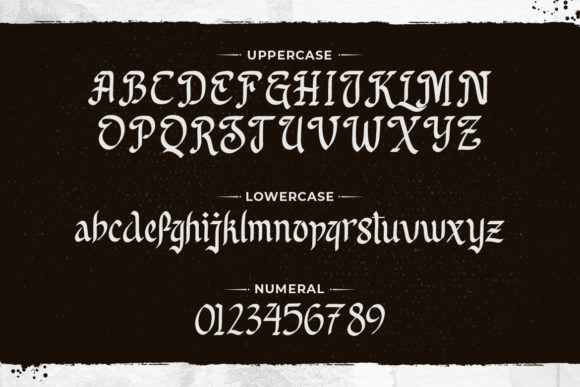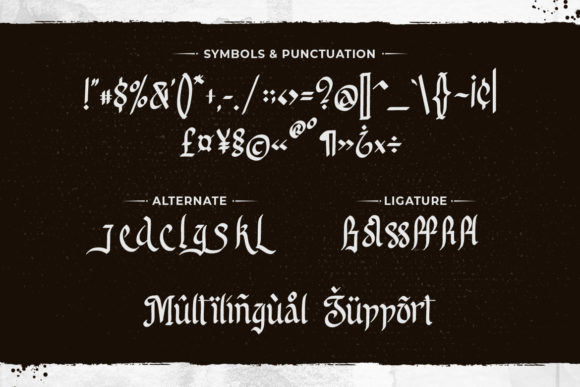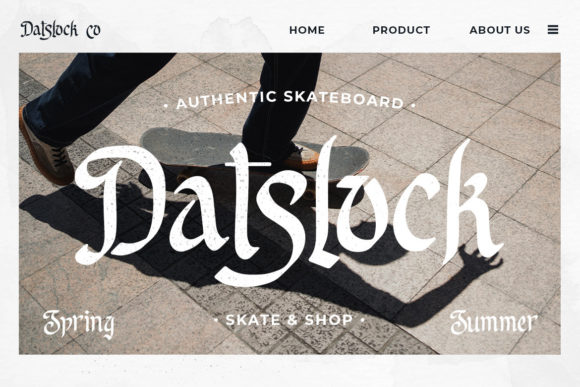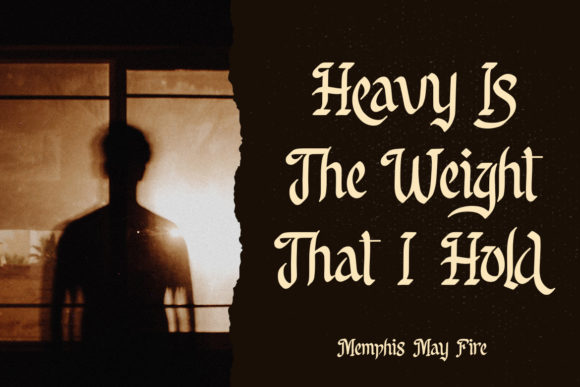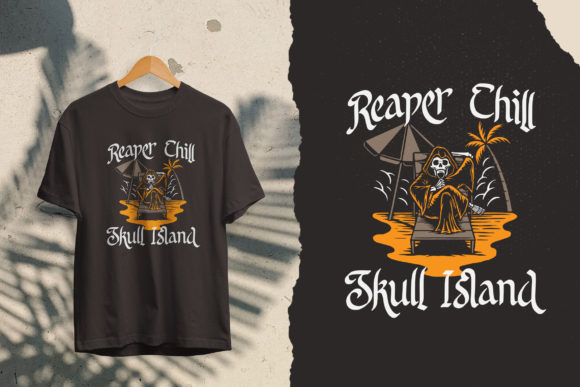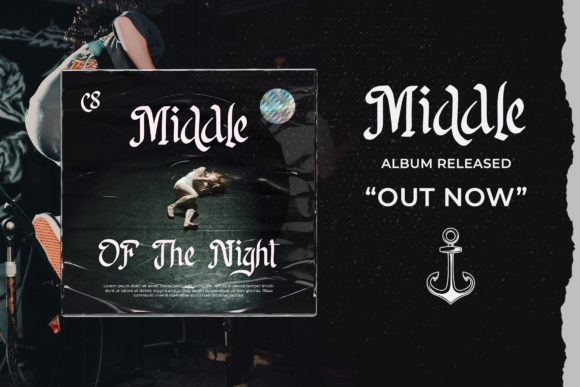
Introduction to Reclaim Glory Font
Have you ever found yourself stuck in a design rut, yearning for that perfect font to elevate your creative project? For designers, the search for the ideal typography can be a daunting task, but what if I told you that you’ve just stumbled upon it? The Reclaim Glory Font is a game-changer, and in this article, we’ll dive into what makes it a valuable addition to any design arsenal.
This striking blackletter font exudes an air of mystery and sophistication, making it a perfect fit for labels, branding, and logos that demand attention. Its gothic design and imposing presence are sure to leave a lasting impression on your audience.
Key Features of Reclaim Glory Font
- High-quality design resource for creative projects: The Reclaim Glory Font is a premium font that offers a unique and elegant look for your designs.
- Transparent background: This font features a transparent background, allowing you to easily layer it over images or other design elements.
- Unique characteristics: The Reclaim Glory Font features a bold and striking design, with intricate details and a mix of modern and vintage elements.
- Perfect for various creative projects: Use this font for logos, branding, advertising, and other design projects where a high-quality, unique font is required.
Honest Review: Reclaim Glory Font
I recently had the chance to experiment with the Reclaim Glory Font, and I must say it’s been a pleasant experience. This font is a great addition to any design resource, offering a high quality and elegant look that can elevate any creative project.
What works well: ✨ The font’s unique design and aesthetic make it perfect for projects that require a touch of sophistication and elegance. The Reclaim Glory Font is also highly versatile and can be used for a wide range of applications, from print to digital media.
However, I did encounter some limitations: ⚠️ The font doesn’t have as many character variations as I would have liked, which can make it less suitable for projects that require a lot of text-based content. Additionally, the font may not be as readable on smaller screens or at smaller font sizes.
Overall, I’m impressed with the Reclaim Glory Font and would definitely consider using it for future projects. Its unique design and high quality make it a valuable addition to any designer’s toolkit.
- Highly versatile and elegant design
Tips for Getting the Most Out of Reclaim Glory Font
For the best results, use Reclaim Glory Font on a transparent background to create a high-quality design. You can also experiment with different font sizes and styles to add depth and visual interest to your creative project.
Reclaim Glory Font is perfect for design projects that require a bold, elegant, and sophisticated look. It’s ideal for use in logos, business cards, brochures, and other marketing materials. With its high-quality design and free download option, it’s a valuable resource for designers and creatives.